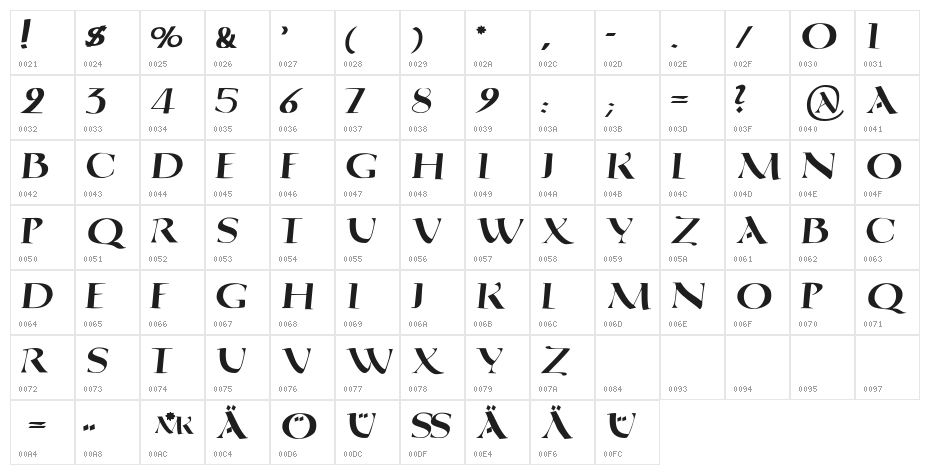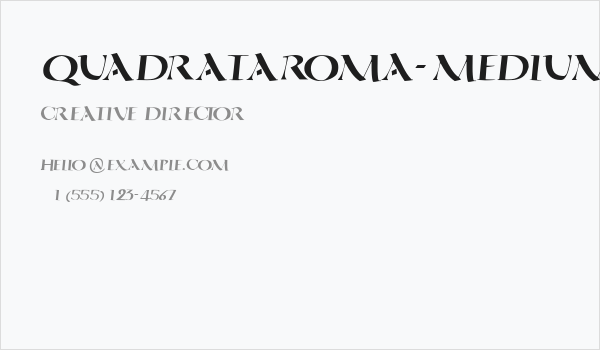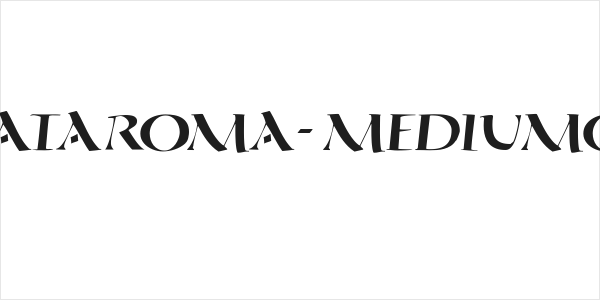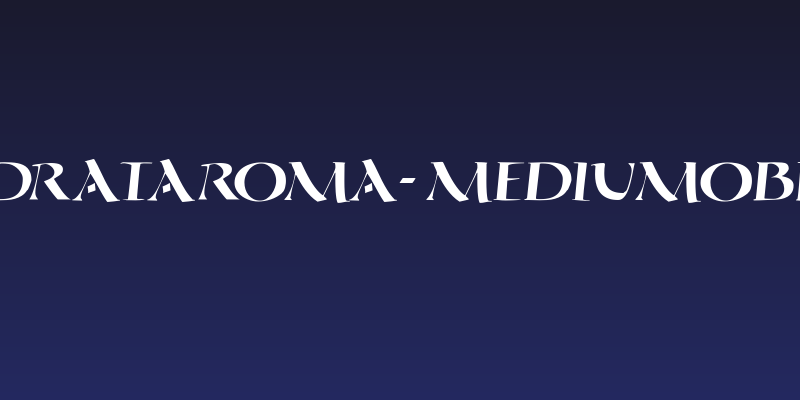
QuadrataRoma-MediumOblique Font
QuadrataRoma-MediumOblique Description
This font features a distinctive oblique style with sharp, angular serifs and a medium weight. The characters exhibit a dynamic and elegant flow, with a slight slant that adds a sense of movement and sophistication. The uppercase letters are bold and commanding, while the lowercase letters maintain a consistent style that complements the overall design. The numerals are clear and well-defined, making them suitable for a variety of uses. Special characters are included, maintaining the font's unique style. The overall appearance is both classic and modern, making it versatile for various design projects.
| Use Case | Headlines, Logos, Editorial design |
| Proposed Projects | Ideal for branding, editorial design, and sophisticated invitations. |